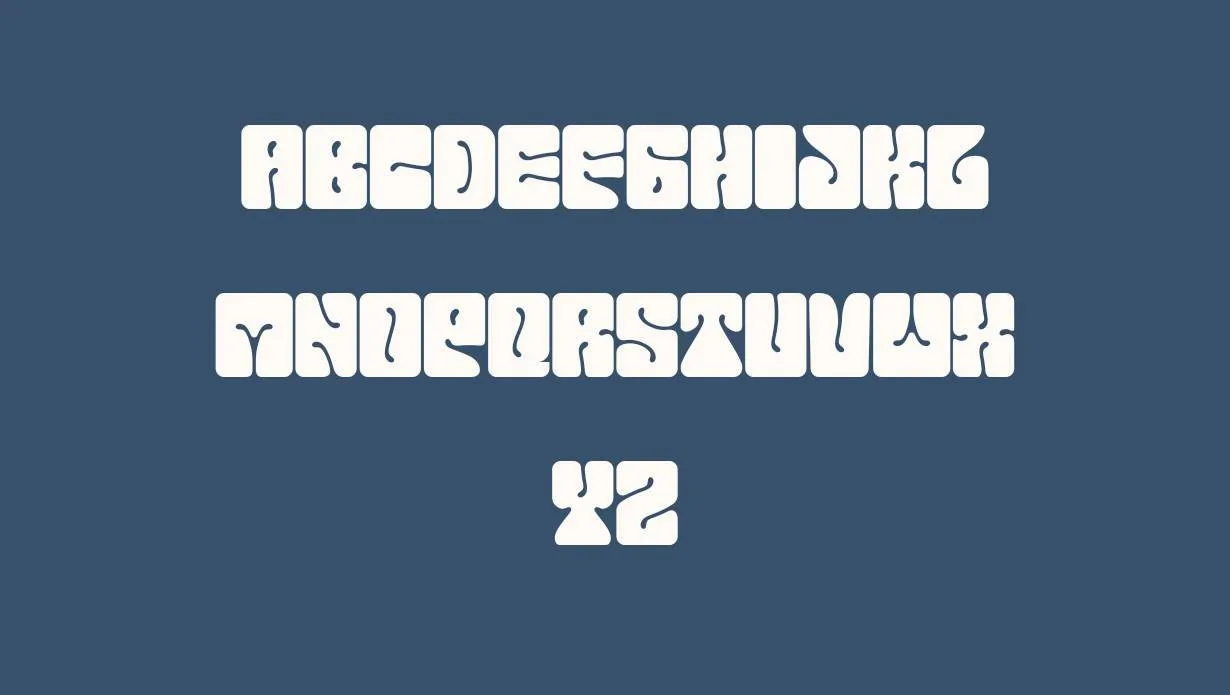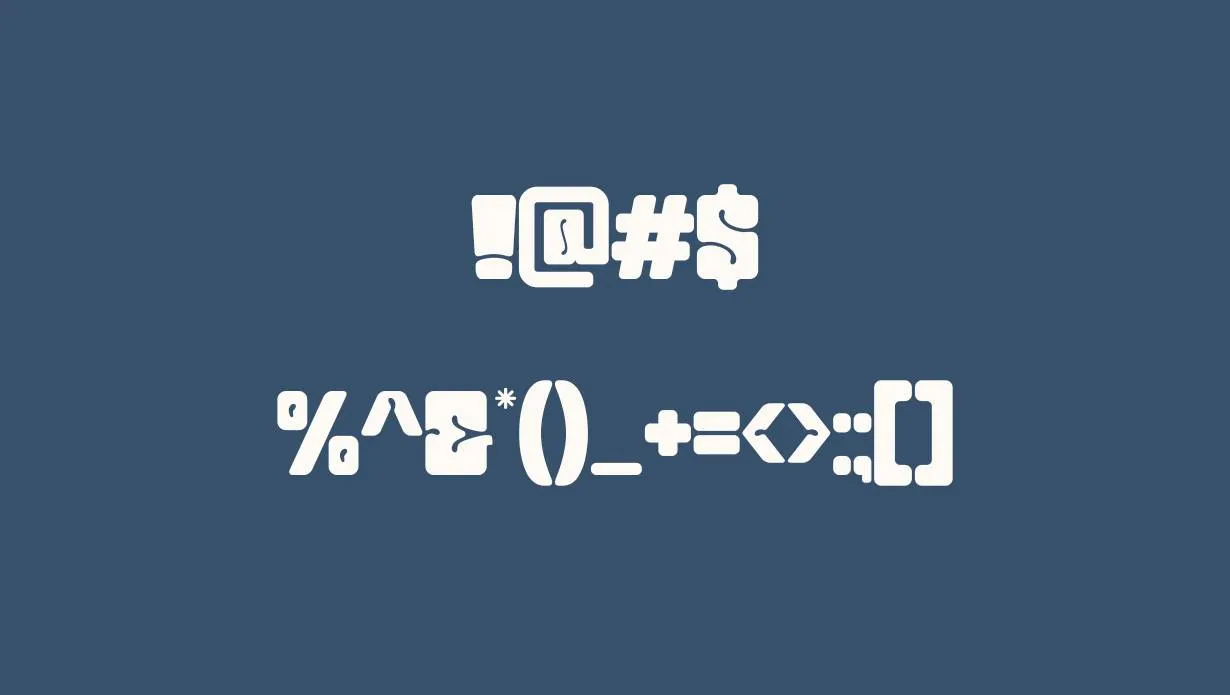
Euphoria party font was designed by a famous Foundry PutraCetol Studio which was made to startle the audience with its design. It is used chiefly for short text like titles, subheadings, and headlines.
The major graphic designer communities are utilizing this typeface for Logo design, banner design, and posters. This typeface comes from the Fancy family.
View of Euphoria Party Font